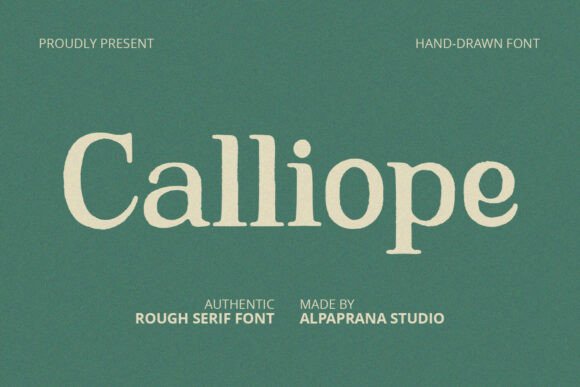
An Honest Review of Calliope Font
What I Love About Calliope ✨
- ✅ Elegant and classic feel, perfect for high-end designs
- ✅ Rough serif details add a touch of sophistication and texture
- ✅ Highly versatile, suitable for various design projects, from magazines to packaging and posters
- ✅ Works beautifully for both digital and print designs
- ⚠️ Some users might find the font’s roughness too prominent, which can be distracting in certain contexts
- ⚠️ Limited availability of stylistic alternates, which might restrict design flexibility
The Backstory of Calliope Font
Calliope Font was inspired by the Muses of Greek mythology, specifically the muse of epic poetry, Calliope. The font’s creator aimed to capture the essence of classic elegance and sophistication, while adding a touch of roughness to give it a unique character.
Q: What type of projects is Calliope Font best suited for?
A: Calliope Font is perfect for magazines, packaging, posters, shopping bags, t-shirts, book covers, photography, special events, and other design projects that require an elegant, classic feel.
Q: Is Calliope Font available in different weights and styles?
A: Calliope Font might be available in various weights and styles, but this depends on the specific font package or version you’re using. Be sure to check the font’s details to see what’s included.
Q: Can I use Calliope Font for digital and print designs?
A: Yes, Calliope Font works beautifully for both digital and print designs. Its elegant, classic feel makes it suitable for a wide range of applications.